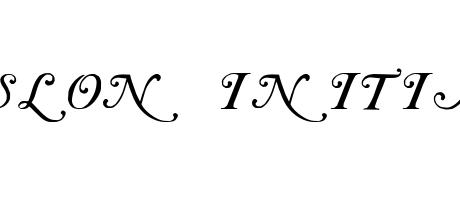
Caslon
Caslon Calligraphic Initials: A flourish of elegance, this font dances across the page with its graceful, italicized capitals. Each letter is a miniature masterpiece, boasting a refined serif detail and sweeping curves. Its old-world charm evokes a sense of sophistication and timeless beauty. Perfect for invitations, titles, or adding a touch of classic style to any design.
Caslon Calligraphic Initials
Caslon Initials